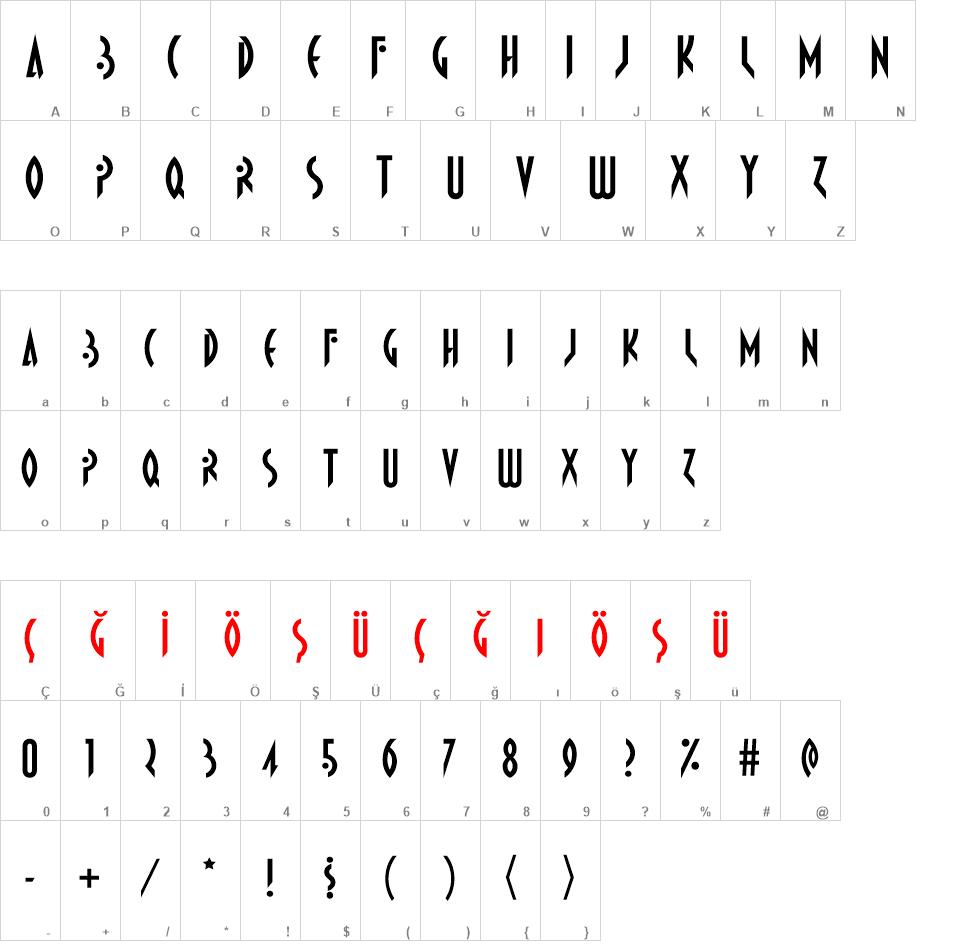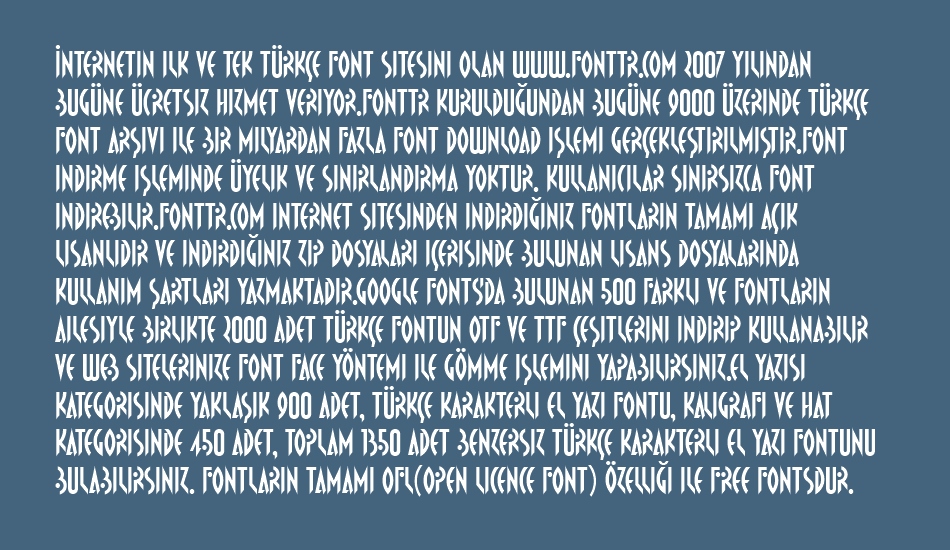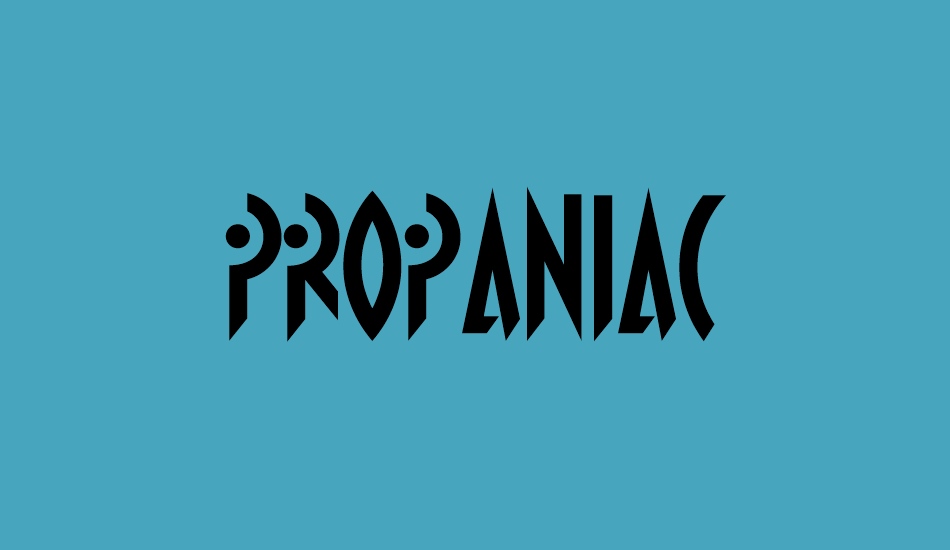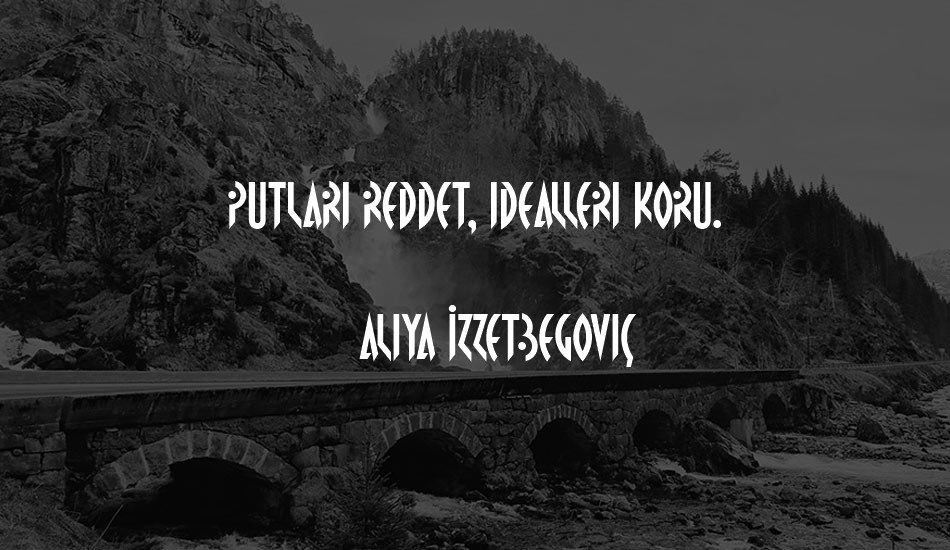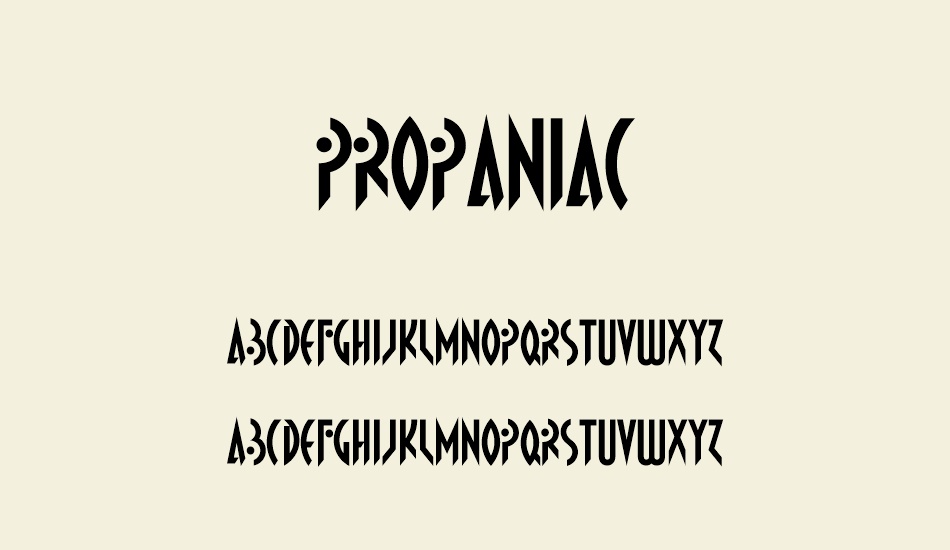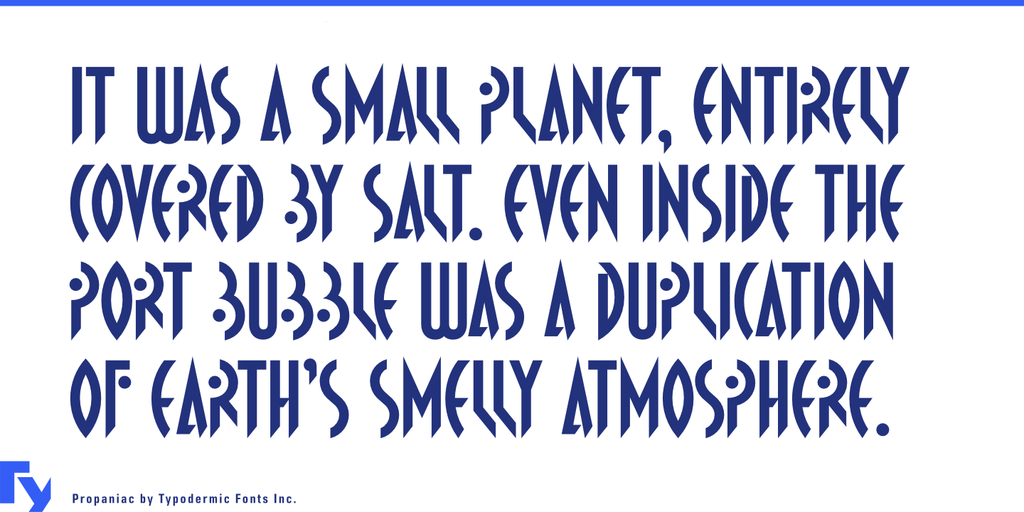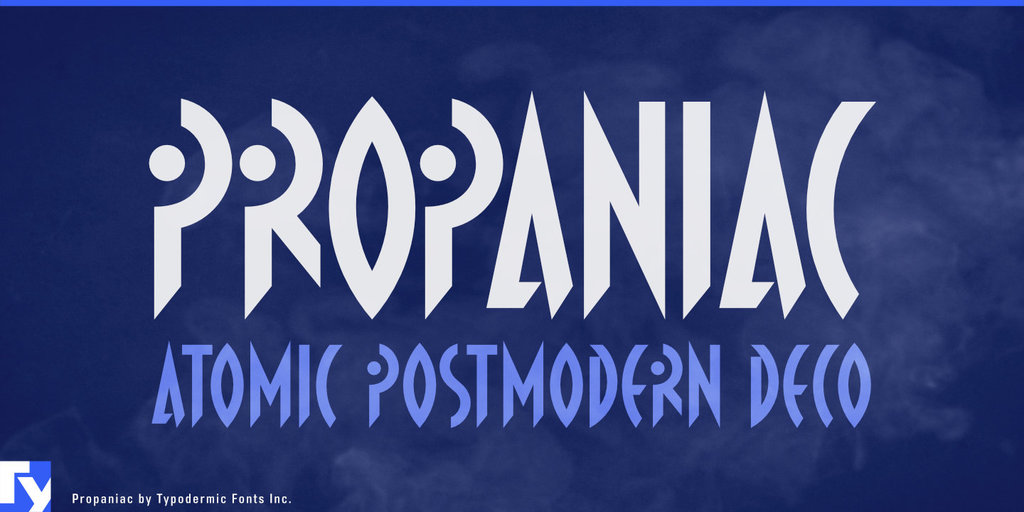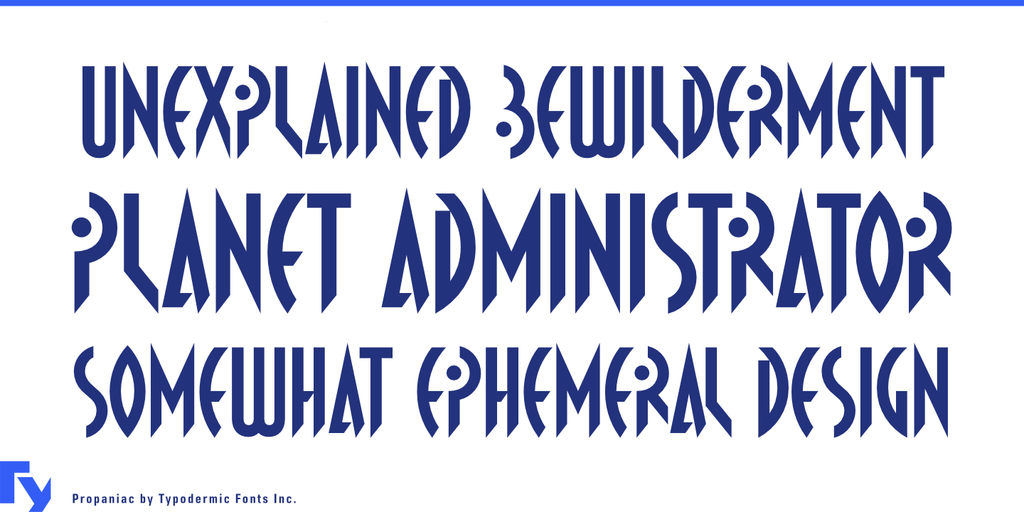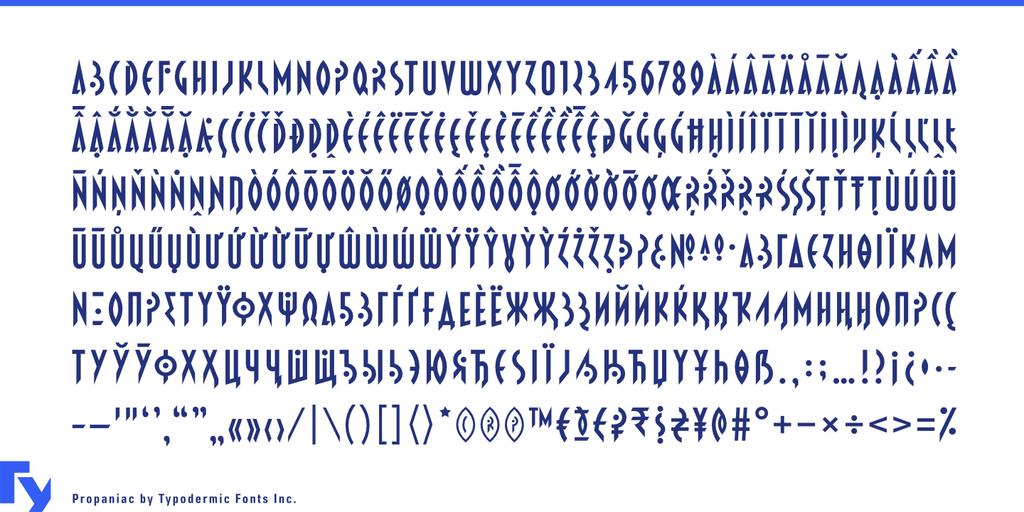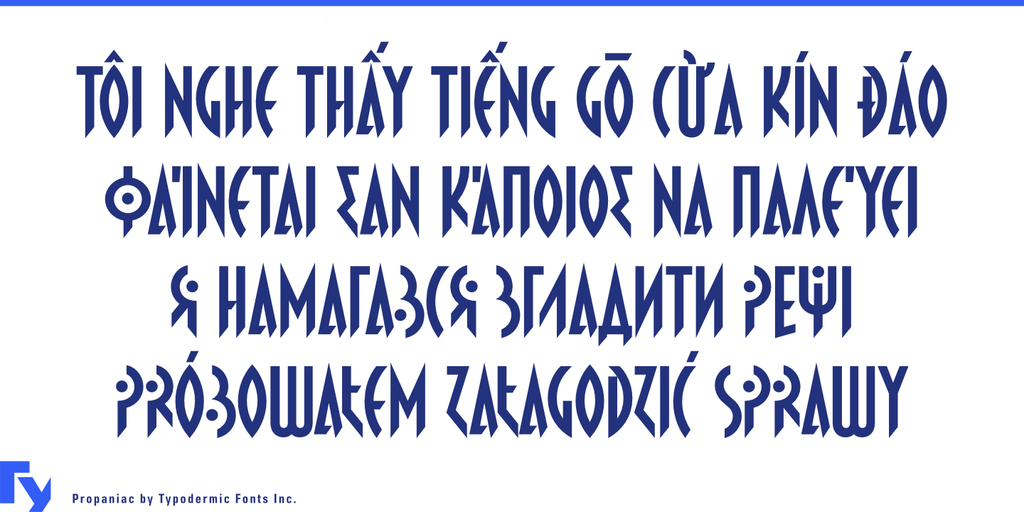
Propaniac font
Propaniac Font
Propaniac is a 1980s-style postmodern typeface inspired by a Pointer Sisters record sleeve which was designed by Shoot That Tiger Creative Services. Almost all current Latin based languages are supported, including Vietnamese, Cyrillic languages and Greek.